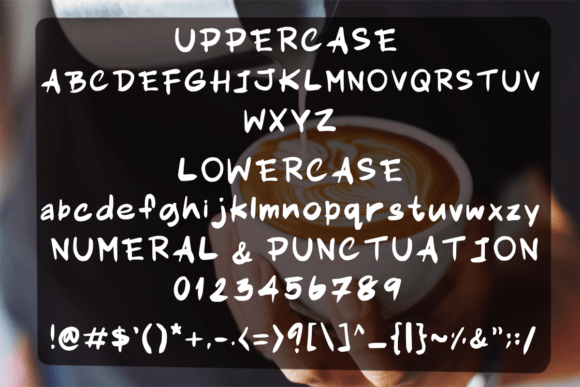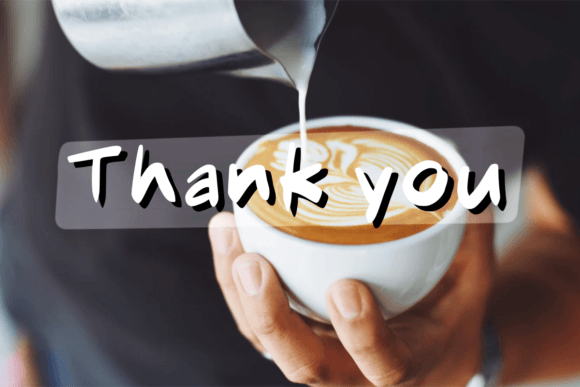
Latte Font
About Latte Font Download
The Latte Font Download is a fun and quirky handwritten script that adds warmth and character to your projects. With its playful strokes and friendly design, Latte is perfect for both professional and personal use. Whether you are creating invitations, digital graphics, or brand logos, this font delivers charm and versatility in equal measure.
A Quirky and Fun Handwritten Style
The Latte script font is crafted to look casual yet stylish. As a result, it feels natural and approachable while still maintaining readability. Furthermore, its playful handwritten quality makes it suitable for projects that require a friendly and lighthearted tone.
Handwritten fonts always bring a personal touch to stationery. The Latte Font is perfect for wedding invitations, birthday cards, thank you notes, and seasonal greetings. Because of its quirky and fun strokes, every card looks unique and joyful. In addition, it ensures your stationery feels fresh and memorable.
Branding and Logo Design with Latte Font
Typography plays a key role in brand identity. The Latte handwritten font works beautifully for boutique logos, packaging, and creative branding projects. Its quirky yet professional style helps businesses stand out while still looking approachable. Therefore, it is especially effective for lifestyle, beauty, and artisanal brands.
Posters, Quotes, and Editorial Projects
The Latte Font Download is also excellent for posters, inspirational quotes, magazines, and book covers. Its handwritten rhythm ensures visibility while maintaining elegance. Consequently, it’s a go-to choice for designers who want to combine personality with clarity.
In today’s digital world, fonts must perform well across different platforms. The Latte typeface integrates seamlessly into Instagram posts, Pinterest graphics, YouTube thumbnails, and blogs. Because of its fun handwritten look, it enhances digital designs with a personal and stylish vibe.
Why Designers Choose Latte Typeface
Designers value fonts that balance playfulness with usability. The Latte handwritten script keeps its quirky character while being versatile and easy to apply. This makes it ideal for both professionals and hobbyists. Moreover, its timeless handwritten style ensures that it remains relevant in future projects.